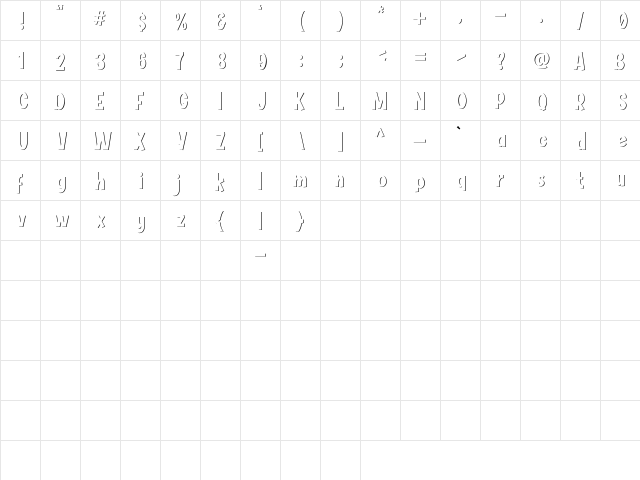
BIMBEY Shadow Regular Font Preview
BIMBEY Shadow Regular
BIMBEY Shadow Regular Font Details
| Designer | Toni Dzulham |
Design Context for BIMBEY Shadow Typeface
BIMBEY Shadow is built around its visual character rather than neutral utility — its distinctive forms are designed to make an impression at display sizes.
Font Pairing: Pair with a clean neutral sans-serif for body copy to let BIMBEY Shadow's character lead without overwhelming the composition.
Pro Tip: Use BIMBEY Shadow exclusively at display sizes — it was designed to be seen, not read at length. Let a neutral companion handle body copy.